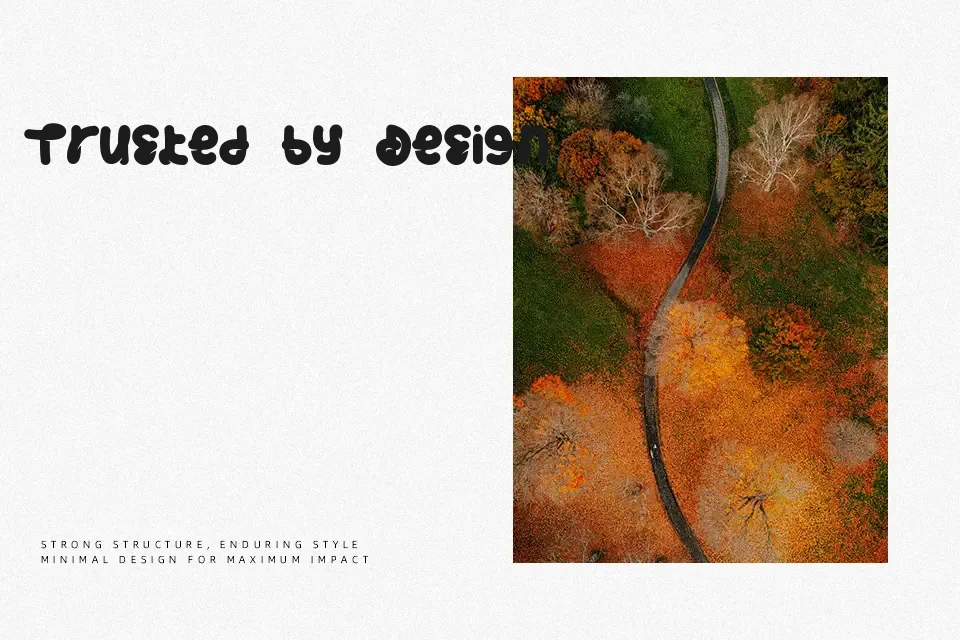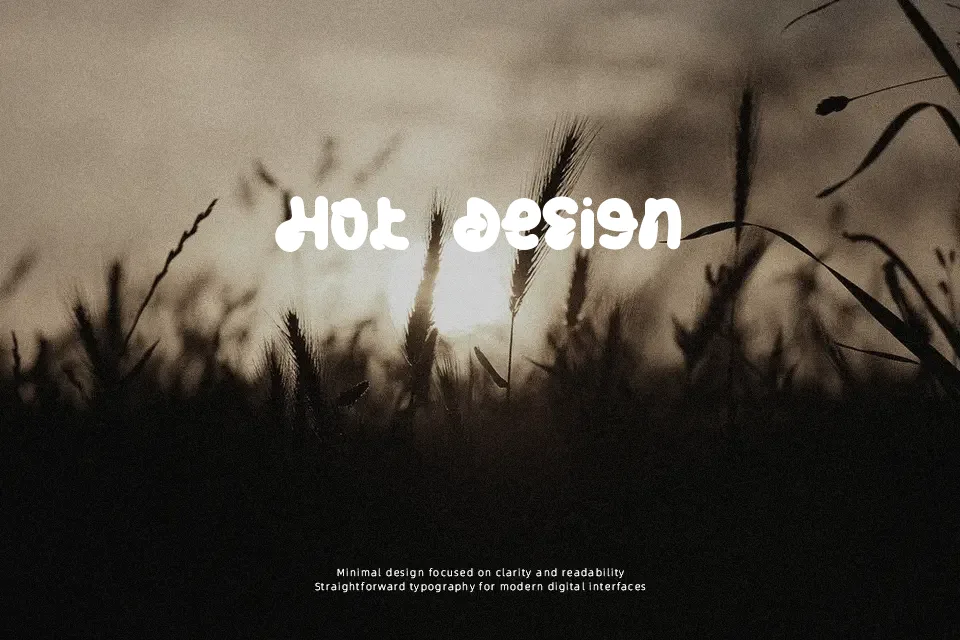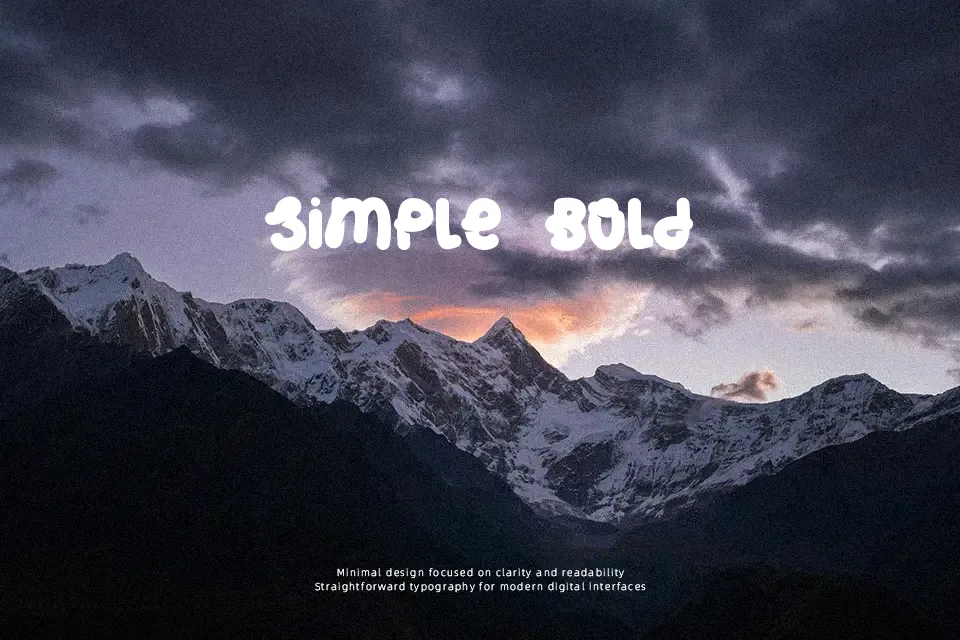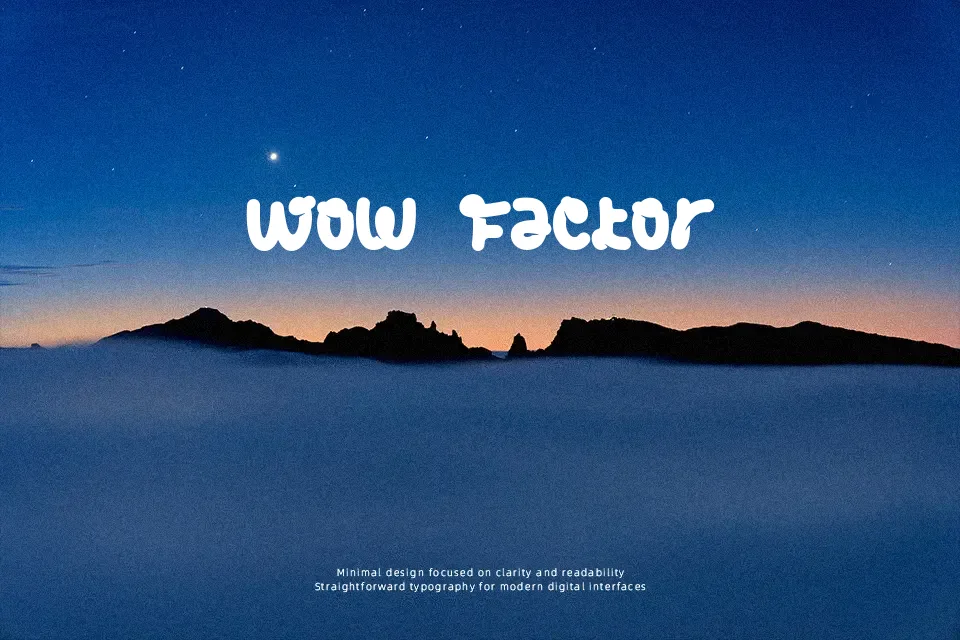
Sweet Kulfi Font
Sweet Kulfi Font features heavy, rounded strokes with animated character shapes and tight letter spacing. The irregular baseline rhythm and plump curves give the letterforms an energetic, handmade quality suited for eye-catching titles. Broad uppercase forms balance well against expressive lowercase glyphs, maintaining distinct silhouettes across short phrases. The typeface excels in casual merchandise, snack branding, and animated video titles where high visual impact is essential. However, the dense weight and compact counters significantly restrict clarity in extended body text or small interface captions. The heavy stroke structure maintains immediate readability in prominent headline layouts.
Best For: snack packaging, kids merchandise, party invitations, cartoon video titles
Not Ideal For: long paragraph text, formal corporate documents, small interface labels, dense editorial layouts
Perfect for branding, headline, and kids, with a bold and cartoon style.